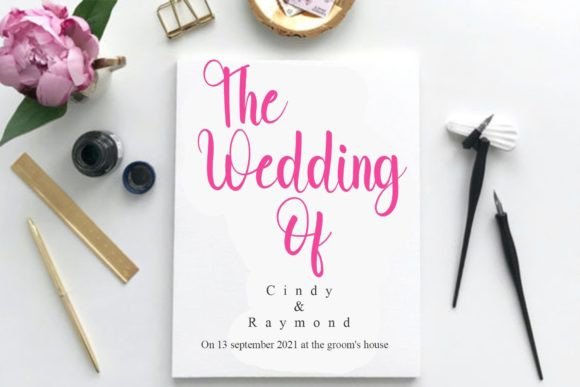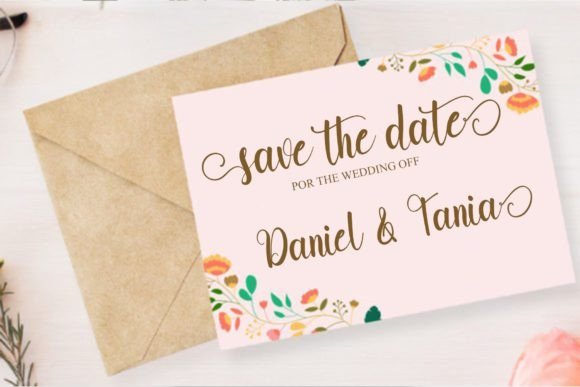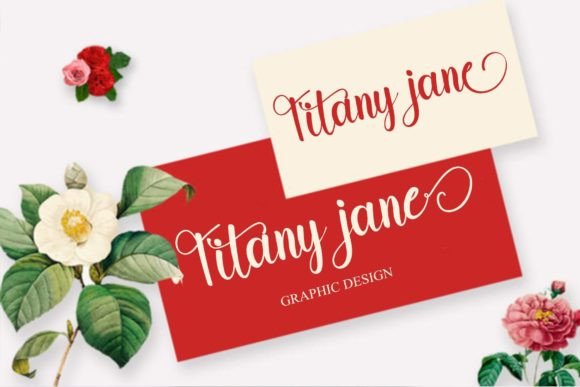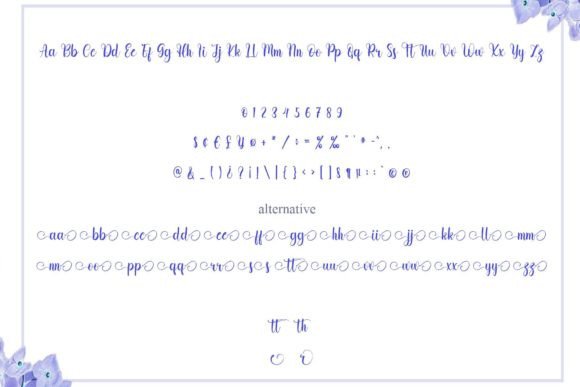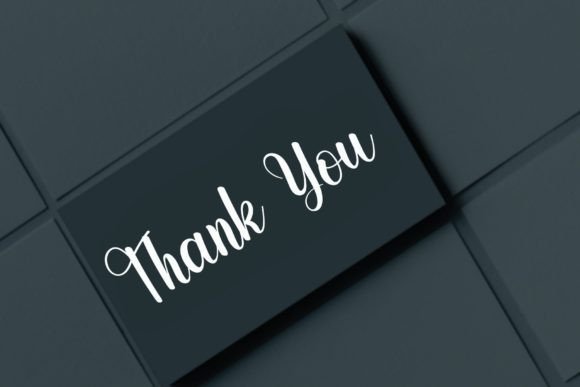
Butter White Font
About Butter White Font
“Butter White” is an elegant handwriting font that features a beautiful character change, embodying a classic decorative script with a modern touch. Meticulously designed with high attention to detail, this font presents an exquisite style that seamlessly combines timeless charm with contemporary sophistication. Notably, “Butter White” is PUA encoded, providing convenient access to a wide array of amazing glyphs and ligatures, ensuring enhanced versatility for your creative projects.
The font’s elegance is evident in its carefully crafted character changes, creating a unique fusion of classic and modern elements. Each letter is designed with precision, resulting in a script that exudes refinement. “Butter White” becomes a versatile choice for various design applications, including invitations, branding, and other creative projects, adding a touch of timeless beauty to your work.
The PUA encoding of “Butter White” is a notable feature, granting you easy access to a diverse range of glyphs and ligatures. This accessibility enhances your creative freedom, allowing you to personalize and customize your designs effortlessly. “Butter White” becomes a user-friendly tool, empowering you to create distinctive and visually captivating compositions.
The exquisite detailing in “Butter White” contributes to its overall aesthetic appeal, making it a standout choice for those seeking an elegant handwriting font. Whether you’re crafting sophisticated invitations or designing a logo with a touch of modern sophistication, this font proves to be a reliable companion.
Incorporate “Butter White” into your design repertoire, and experience the charm of its elegant handwriting. Let this font be the artistic element that brings a sense of sophistication to your projects, presenting a perfect blend of classic and modern design sensibilities.